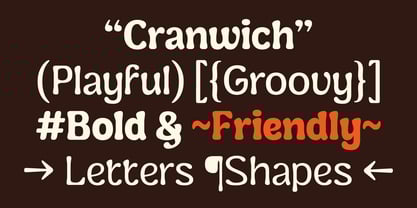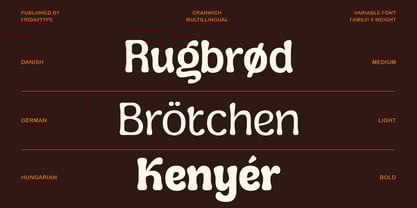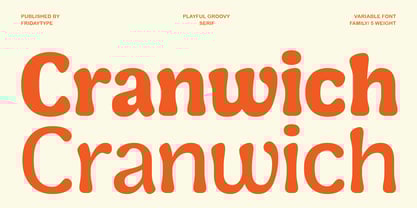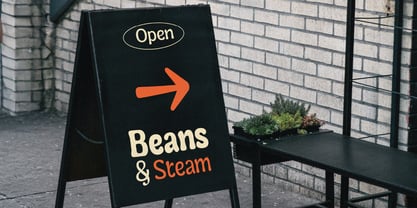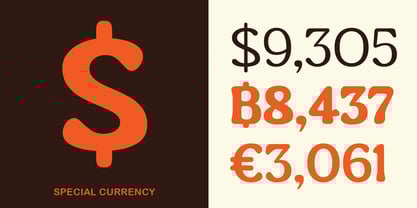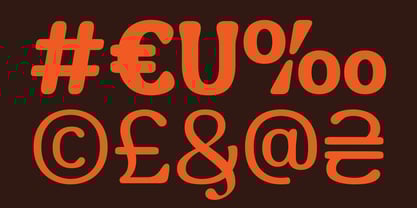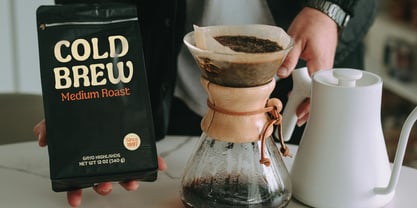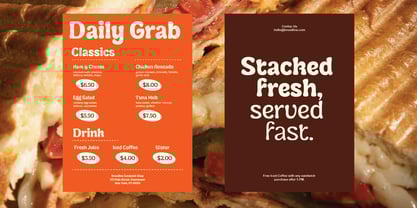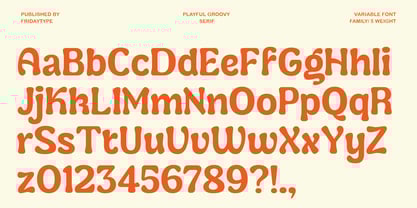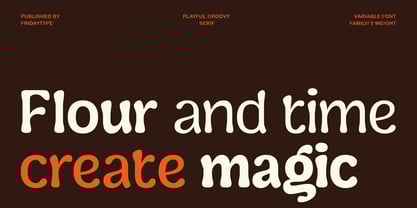
Cranwich
by Fridaytype
The Cranwich Font Family was designed by Farida Kurniawan and published by Fridaytype. Cranwich contains 5 styles and family package options. More about this family
Cranwich is a playful groovy serif with bold and friendly character. Designed to bring warmth and personality into food-related branding—perfect for bakeries, cafés, coffee shops, and restaurants that want to stand out with a fresh identity. With fun yet expressive letterforms, Cranwich delivers a taste of bold flavor in every design. This font comes in 5 styles (Light, Regular, Medium, SemiBold, and Bold), making it versatile for everything from menu design, coffee packaging, signage, to digital campaigns for food and beverage brands. Highlights - Playful Groovy Serif with bold & friendly vibes - Designed for food & beverage branding: bakeries, cafés, restaurants, coffee shops - Comes in 5 styles for maximum flexibility - Supports multilingual characters - Perfect for logos, menus, packaging, posters, and social media content Cranwich isn’t just a font—it’s a flavorful design companion. With bold charm and friendly shapes, it helps your brand serve not only food, but also a memorable visual experience.Thanks and have a wonderful day.